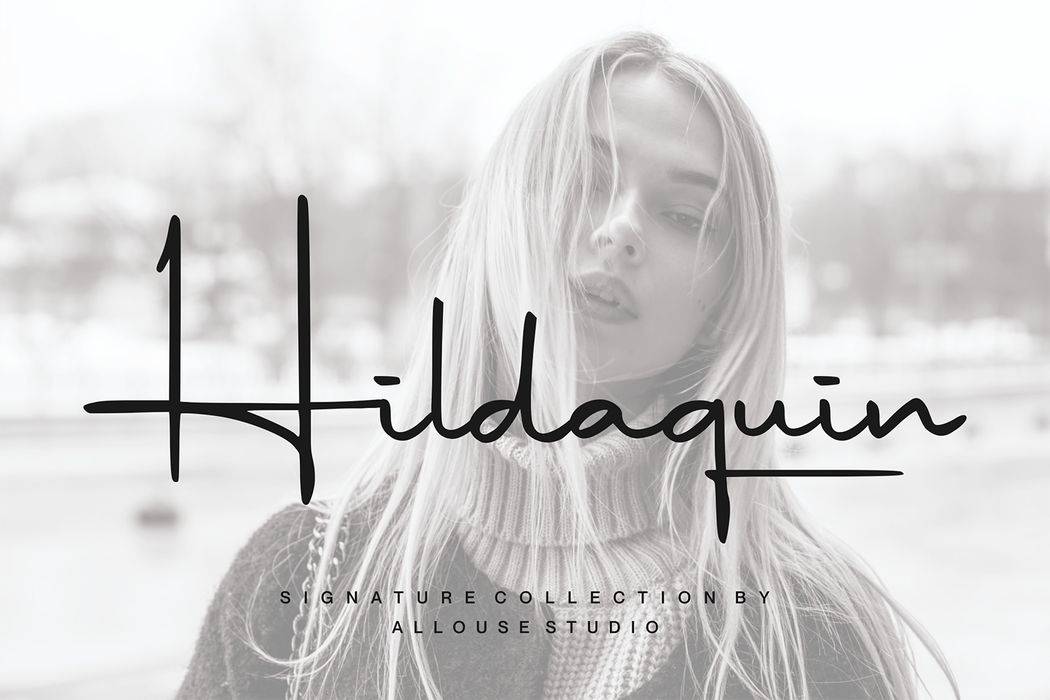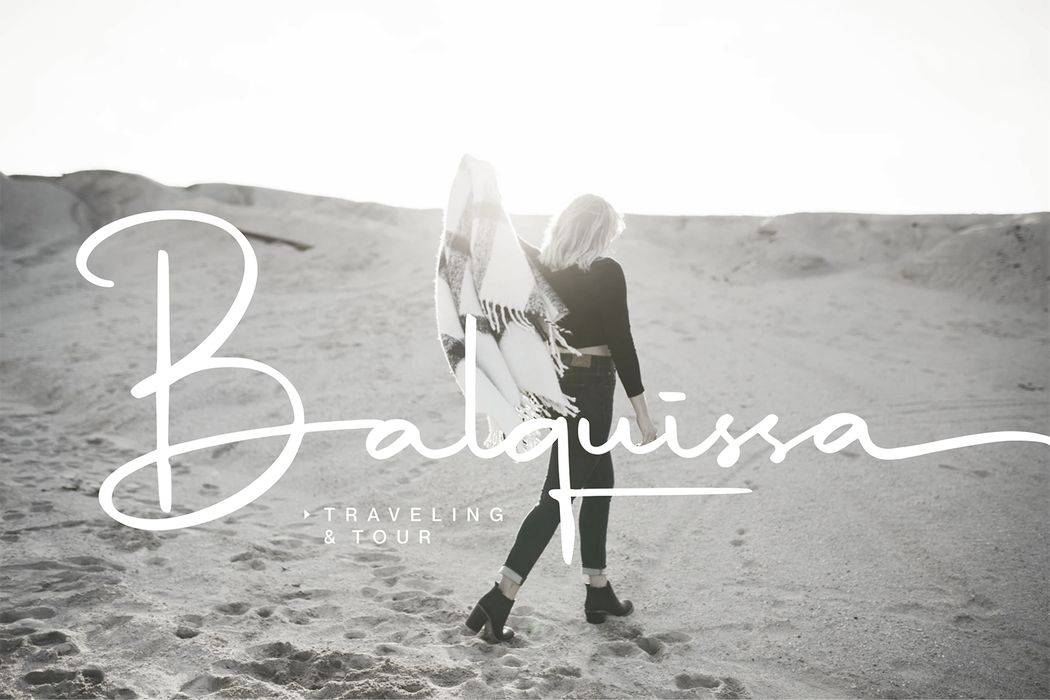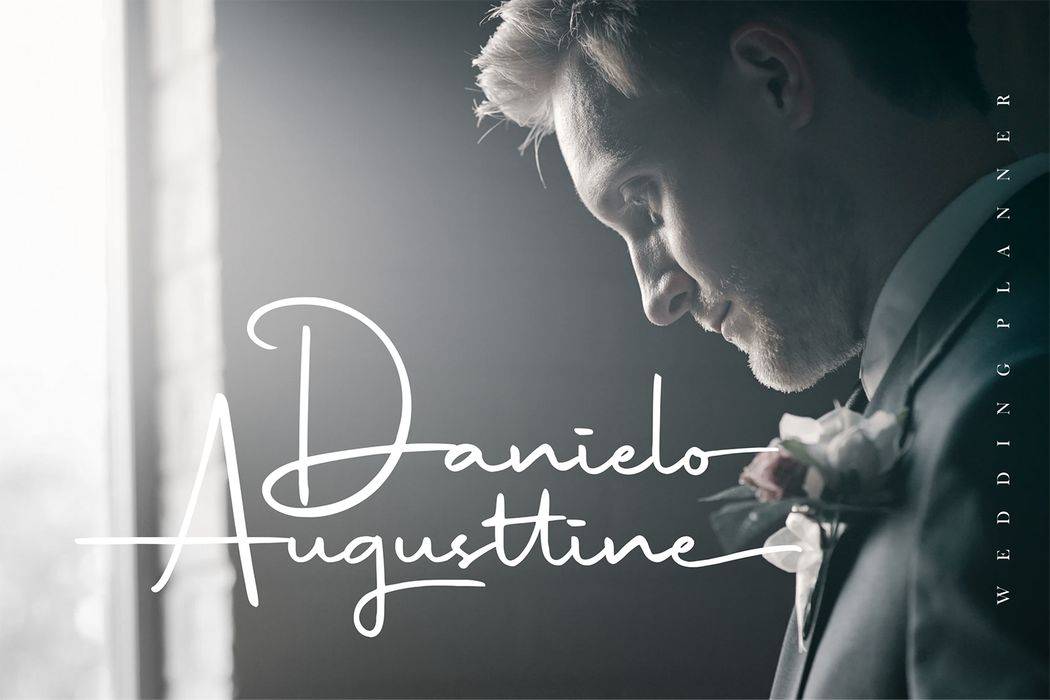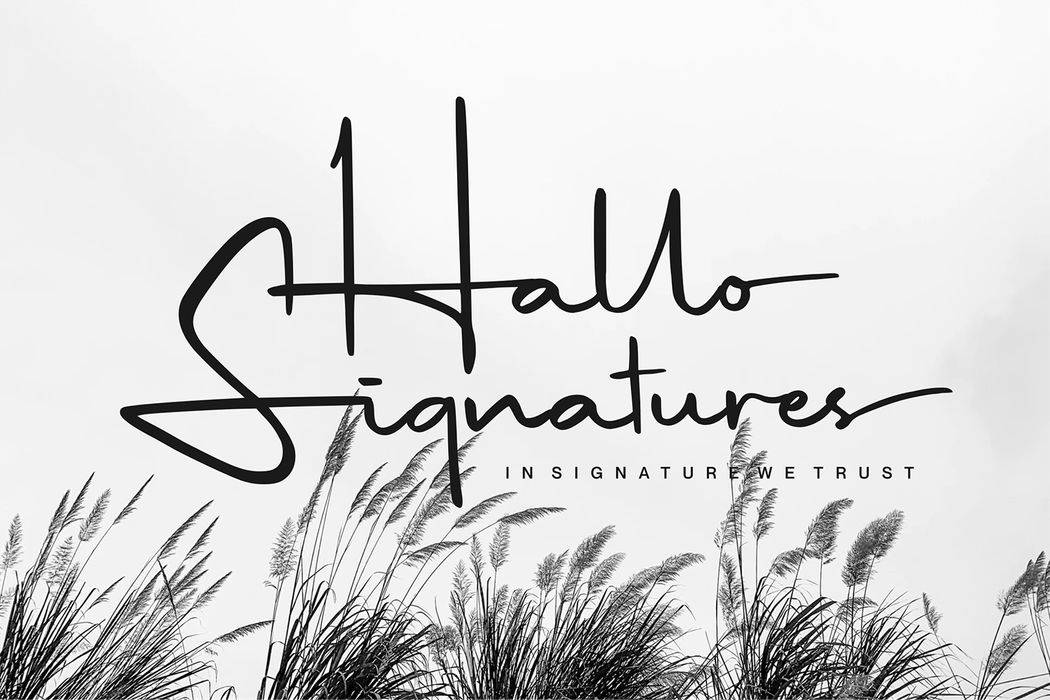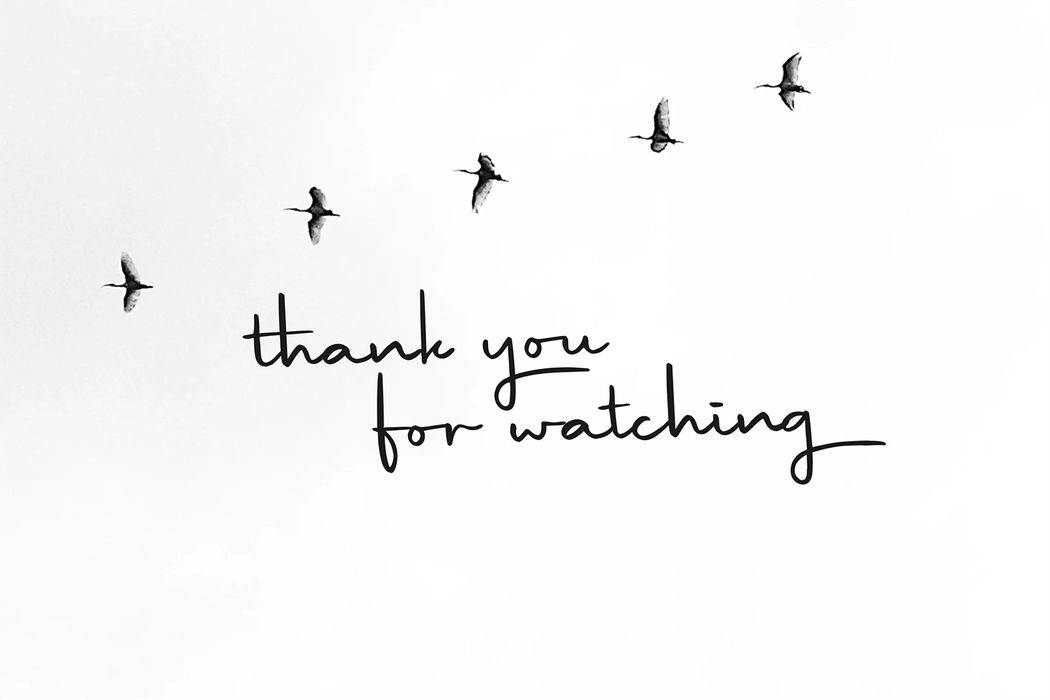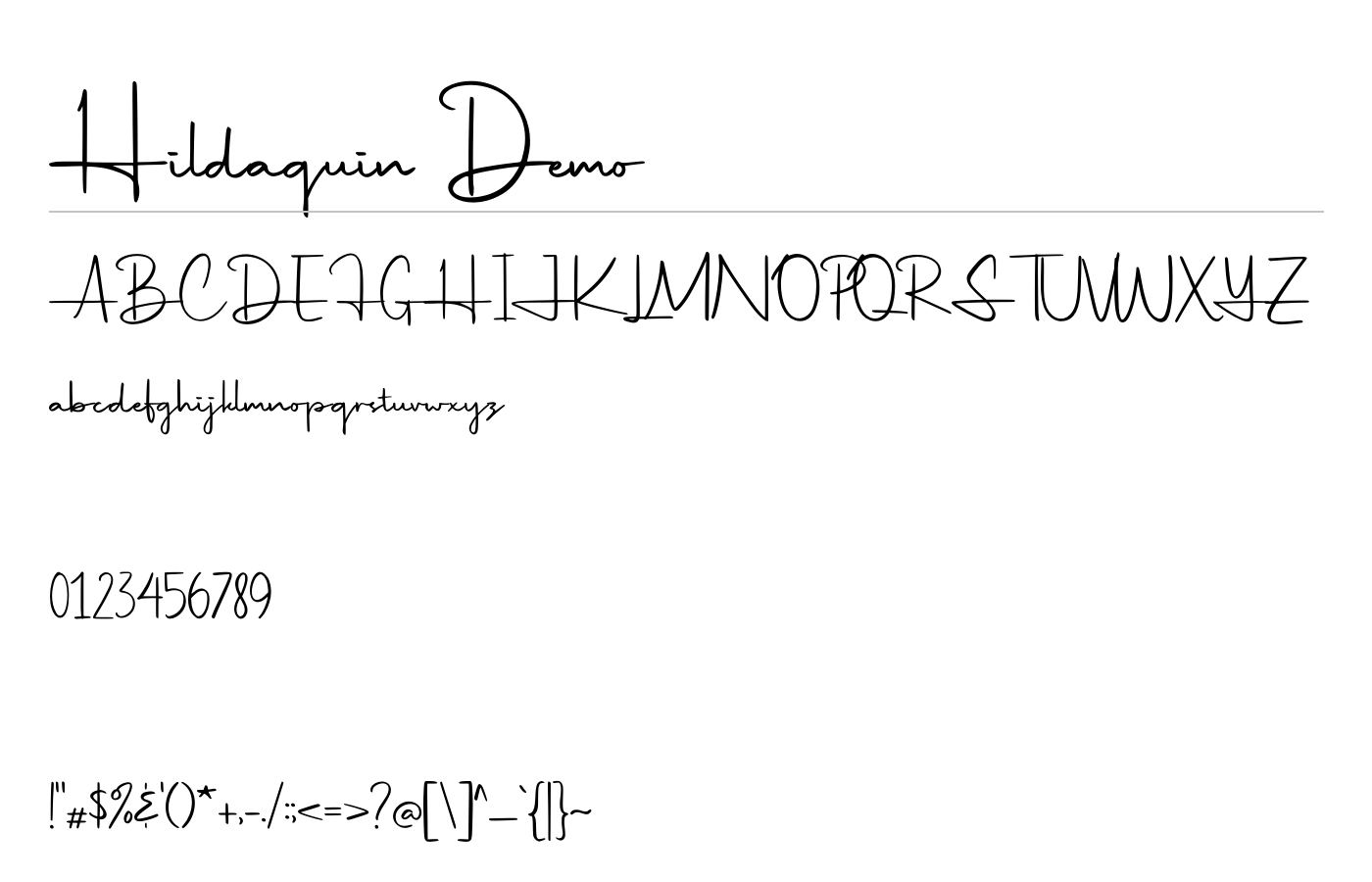
Hildaquin is a delicate, handwritten script font with a tall, slender appearance and playful irregularities that give it a casual, artistic feel. Its thin strokes and whimsical letterforms, including unique uppercase designs and flowing lowercase, make it perfect for creative projects, invitations, and branding that seeks a personal, charming touch. This font works well for designs needing a light, approachable style with a modern hand-crafted vibe.
Hildaquin Font
About Hildaquin Font